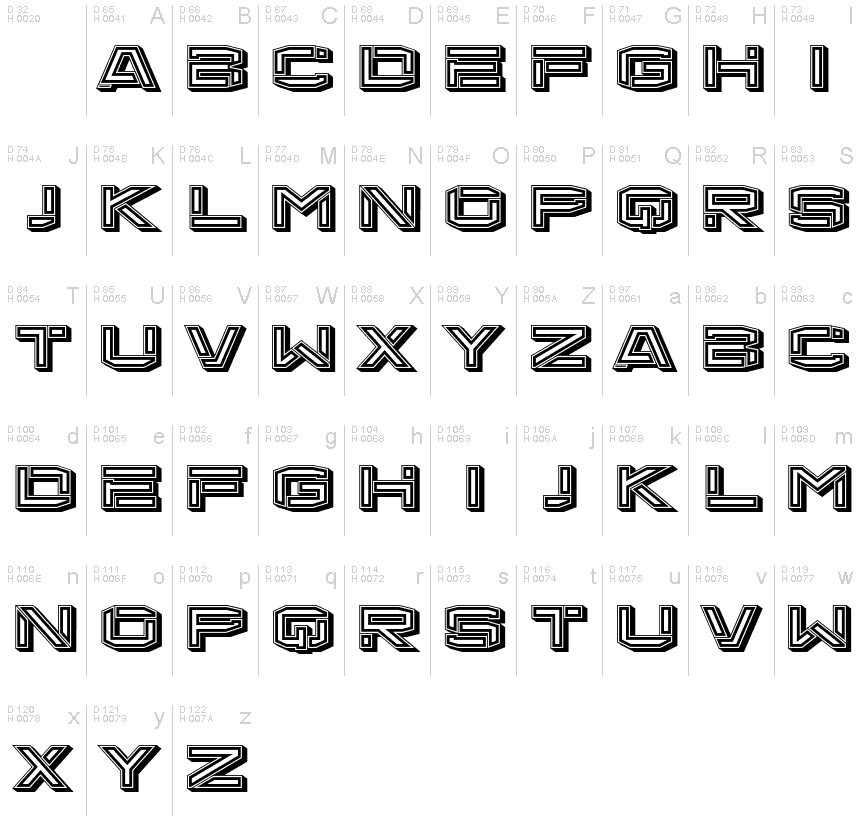
Perdite Extravagant Regular
Perdite Extravagant is a gorgeous display font designed by Vladimir Nikolic. Its extra-expanded width and futuristic, techno style make it perfect for projects that demand attention. Whether you're creating a website, advertising campaign, or product packaging, this font will leave a lasting impact on your audience. From bold headlines to striking logos, Perdite Extravagant is the ideal choice for brands looking to stand out in a crowded marketplace. So why settle for ordinary when you can be extravagant? Use Perdite Extravagant to take your design projects to the next level!